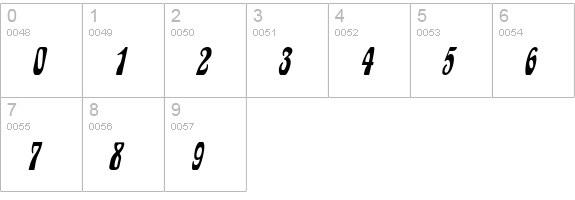
Epic Italic is a distinctive, italic variant in the Epic typeface family \xE2\x80\x94 well suited to design and typography projects.
Introducing the stunning Epic Italic font, a captivating typeface that exudes elegance and sophistication. Its sleek and stylish italic design adds a touch of flair to any project, making it perfect for luxury branding, editorial design, and more. With its unique blend of contemporary and classic elements, Epic Italic is sure to make a statement and leave a lasting impression. The best part? Epic Italic is available for free download at FontsMarket.com, making it easily accessible for designers and creatives looking to elevate their work with a touch of class. Don't miss out on the opportunity to enhance your projects with this exquisite font that is sure to stand out from the crowd. Download Epic Italic today and unleash your creativity like never before!